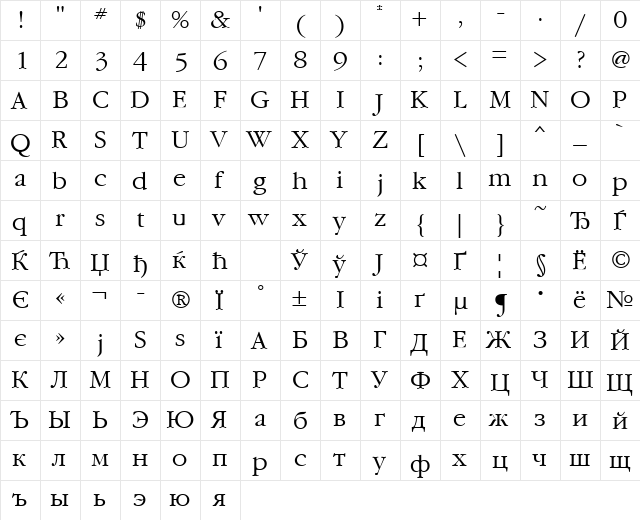
GaramondCTT Regular Font Preview
GaramondCTT Regular
Design Context for GaramondCTT Typeface
GaramondCTT offers clean, dependable letterforms without strong stylistic allegiance, making it a practical choice for designers who need flexibility.